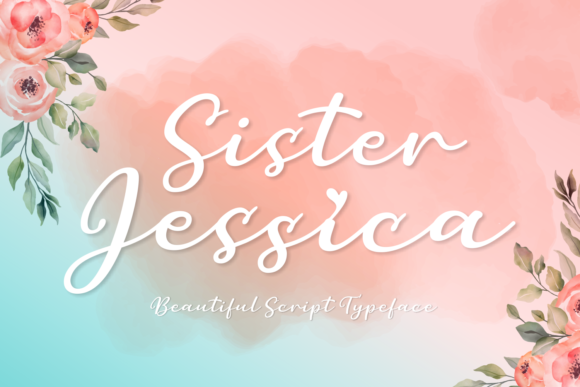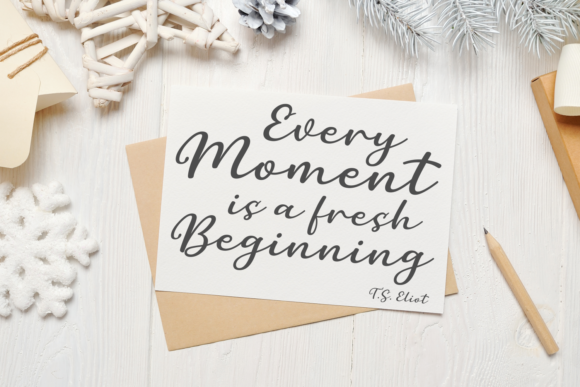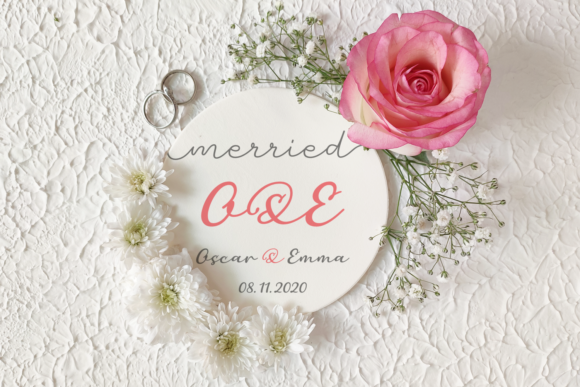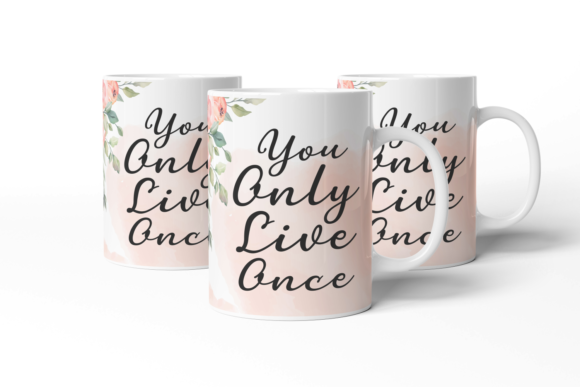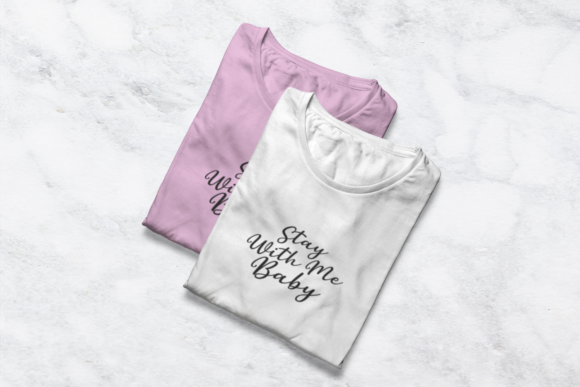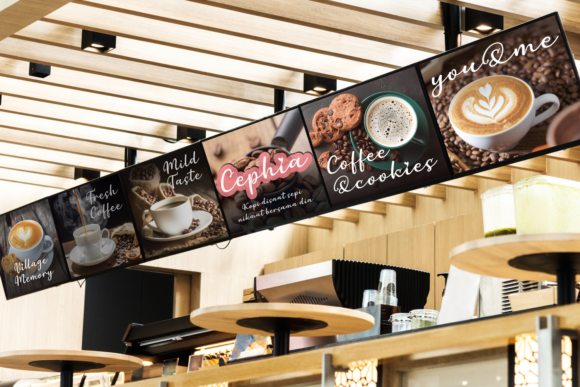
Introduction to Sister Jessica Font Font
Fonts play a crucial role in design, and the Sister Jessica Font font is a typeface that brings both character and versatility to any project. Whether you’re working on a branding project, a website, or a print design, the Sister Jessica Font font offers a unique style that can elevate your work.
Sister Jessica is inspired by classic typography and brings its own unique style to any design project.
This fantastic script font is best suited for headlines of all sizes, as well as for blocks of text that have both maximum and minimum variations Whether itβs for web, print, moving images or anything else β Sister Jessica will look spectacular.
Key Features of Sister Jessica Font Font
Why Choose Sister Jessica Font Font?
The Sister Jessica Font font is more than just a typeface β it’s a design tool that helps you communicate your message with style and clarity. Its unique character set and versatile design make it suitable for a wide range of applications, from elegant invitations to bold headlines.
With its carefully crafted letterforms and balanced proportions, the Sister Jessica Font font ensures readability and visual appeal across all mediums.
What makes Sister Jessica Font font special?
The Sister Jessica Font font stands out with its unique design, exceptional readability, and versatility across various design applications.